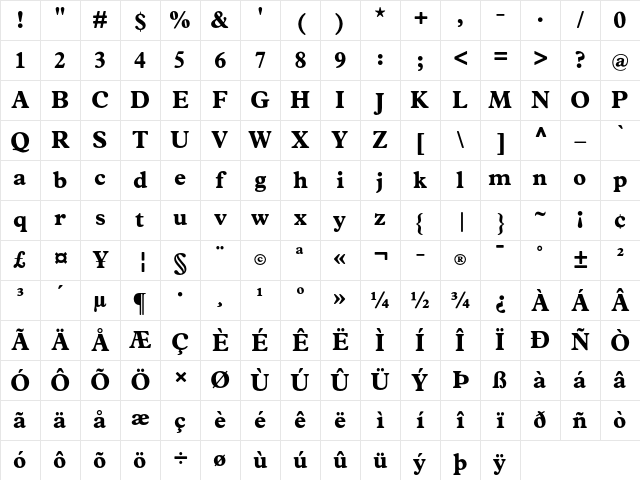
Complete Index-Bold Regular glyph index. Displaying only characters natively supported by Index-Bold Regular font.
Index-Bold is a composed and adaptable typeface that performs quietly and consistently across a wide range of design contexts. Its bold stroke weight gives it real presence on the page.